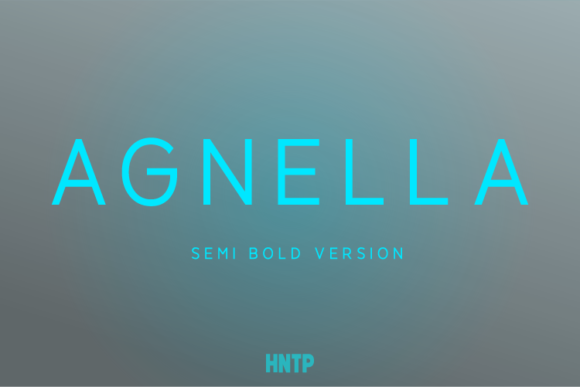
Introducing Agnella Semi-Bold, a captivating sans serif font that will leave a lasting impression on your designs.
Created by the talented team at Huntype, Agnella Semi-Bold exudes an air of sophistication and modernity. Its neatly cut stems, both vertical and horizontal, convey a sense of stability and strength, while the subtle curves add a touch of elegance.
Whether you're crafting elegant invitations, creating visually captivating social media posts, or designing eye-catching logos, Agnella Semi-Bold is a font that will make your words shine. Its versatility and timeless appeal make it a perfect choice for a wide range of projects.
Don't let your words get lost in the digital noise. Elevate your designs and captivate your audience with Agnella Semi-Bold. Its bold presence and undeniable charm will transform your words into memorable masterpieces.
Immerse yourself in the world of Agnella Semi-Bold and witness the power of a font that speaks volumes. With its strong character and graceful curves, Agnella Semi-Bold will elevate your designs to new heights.